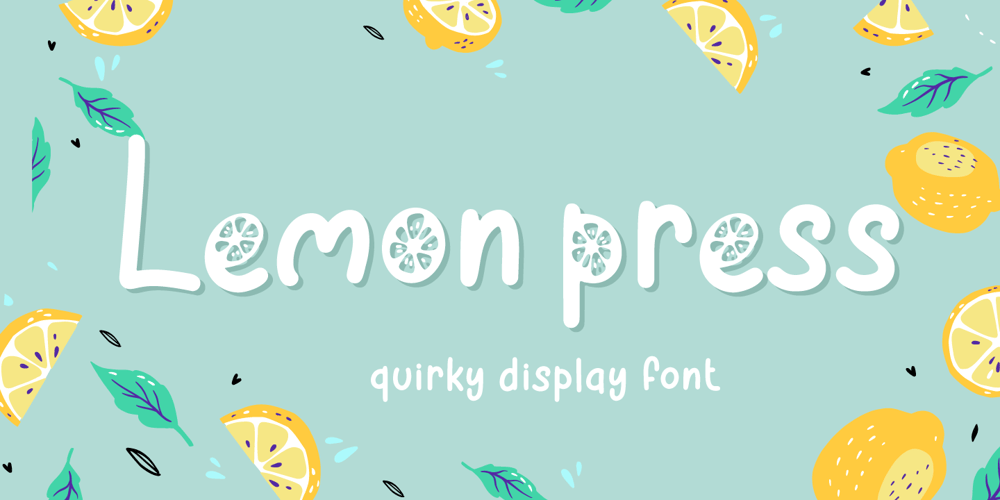
Lemon Press Font Family was designed by Fadli Ramadhan Iskandar and published by Attype Studio. Lemon Press contains 2 styles and family package options. Lemon Press is display font of fresh lemon, come up with two font regular and display. It is suitable for any summer event! Lemon Press is perfect for branding, logo, invitation, stationery, social media post, product packaging, merchandise, blog design, game titles, cute style designs, Book/Cover Titles and more.Multilingual Support included for Afrikaans, Albanian, Catalan, Danish, Dutch, English, Estonian, Finnish, French, German, Icelandic, Italian, Norwegian, Portuguese, Spanish, Swedish, Zulu.Hope you enjoy with our font!Attype Studio